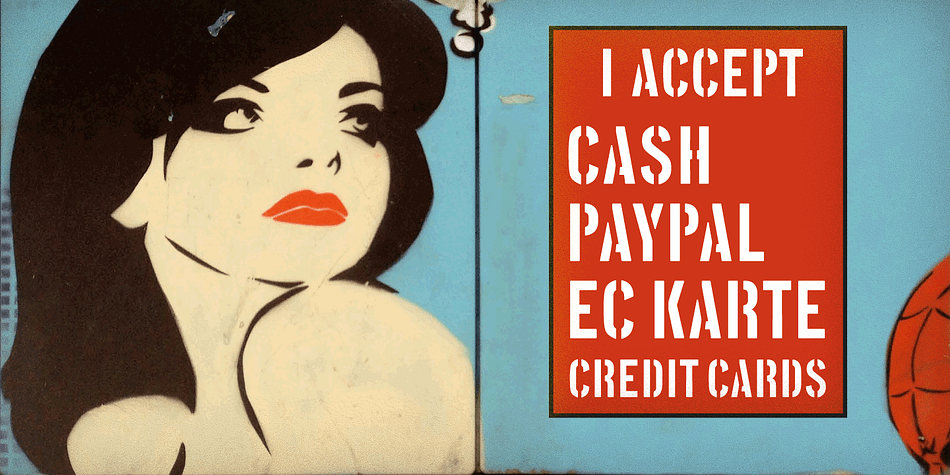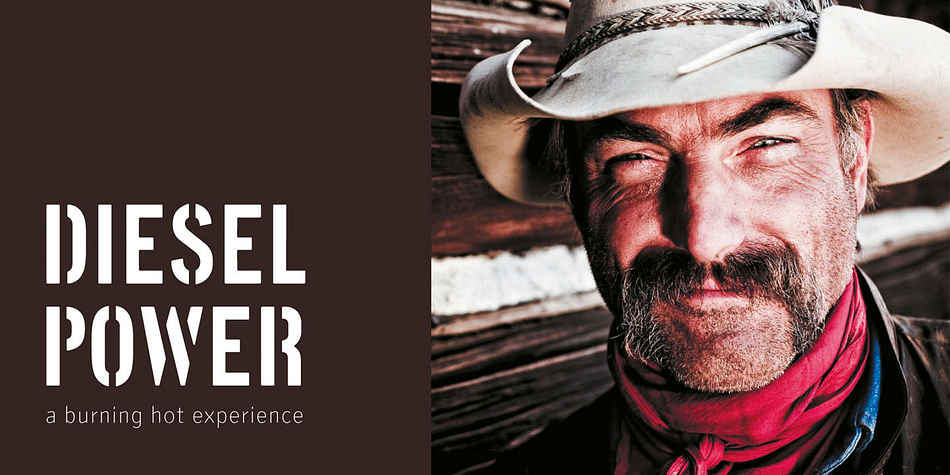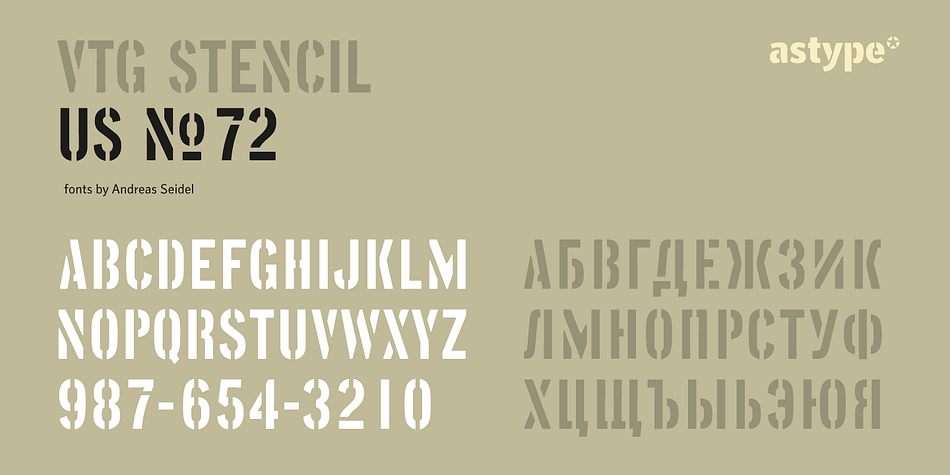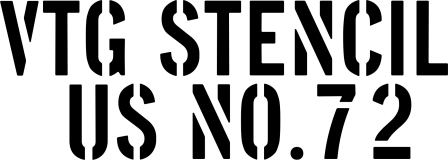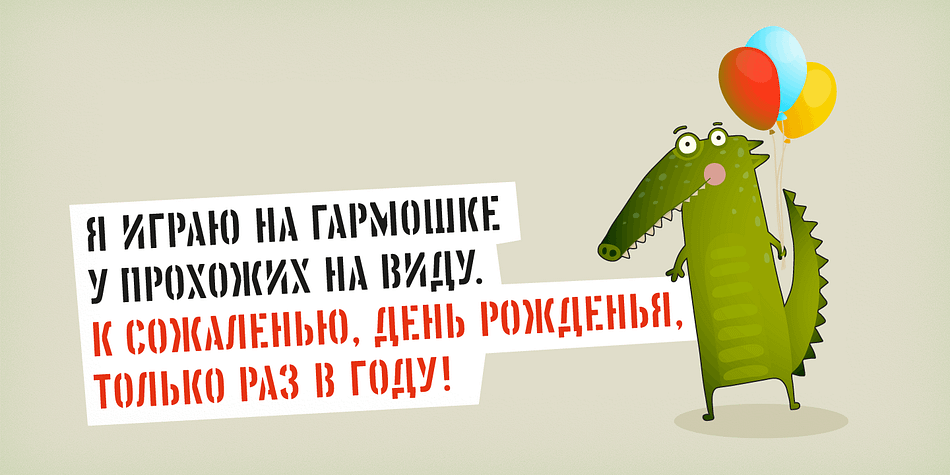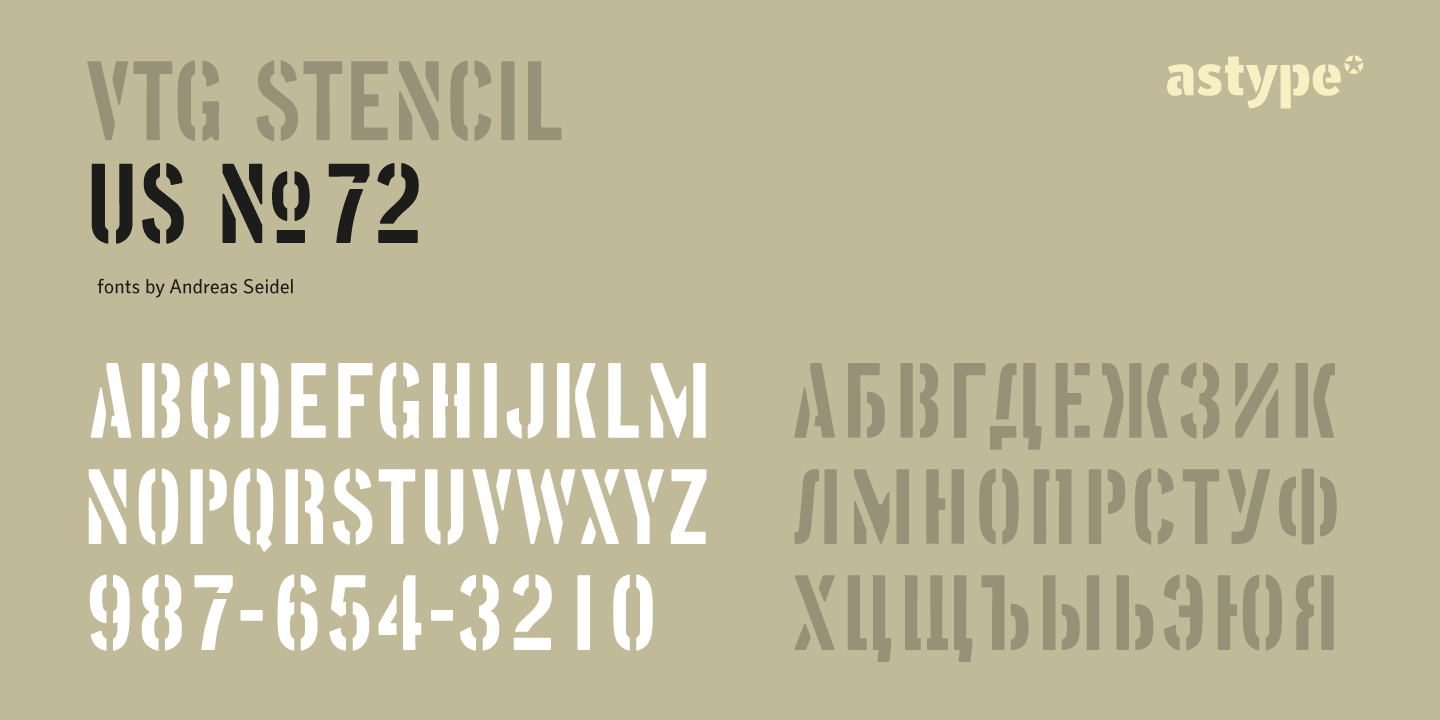
Designed by Andreas Seidel, Vtg Stencil US No.72 is a stencil font family. This typeface has four styles and was published by Astype.
The Vtg Stencil font series by astype is based on real world stencils. The US No. 72 design was derived from authentic stencil plates used by the U.S. Army.